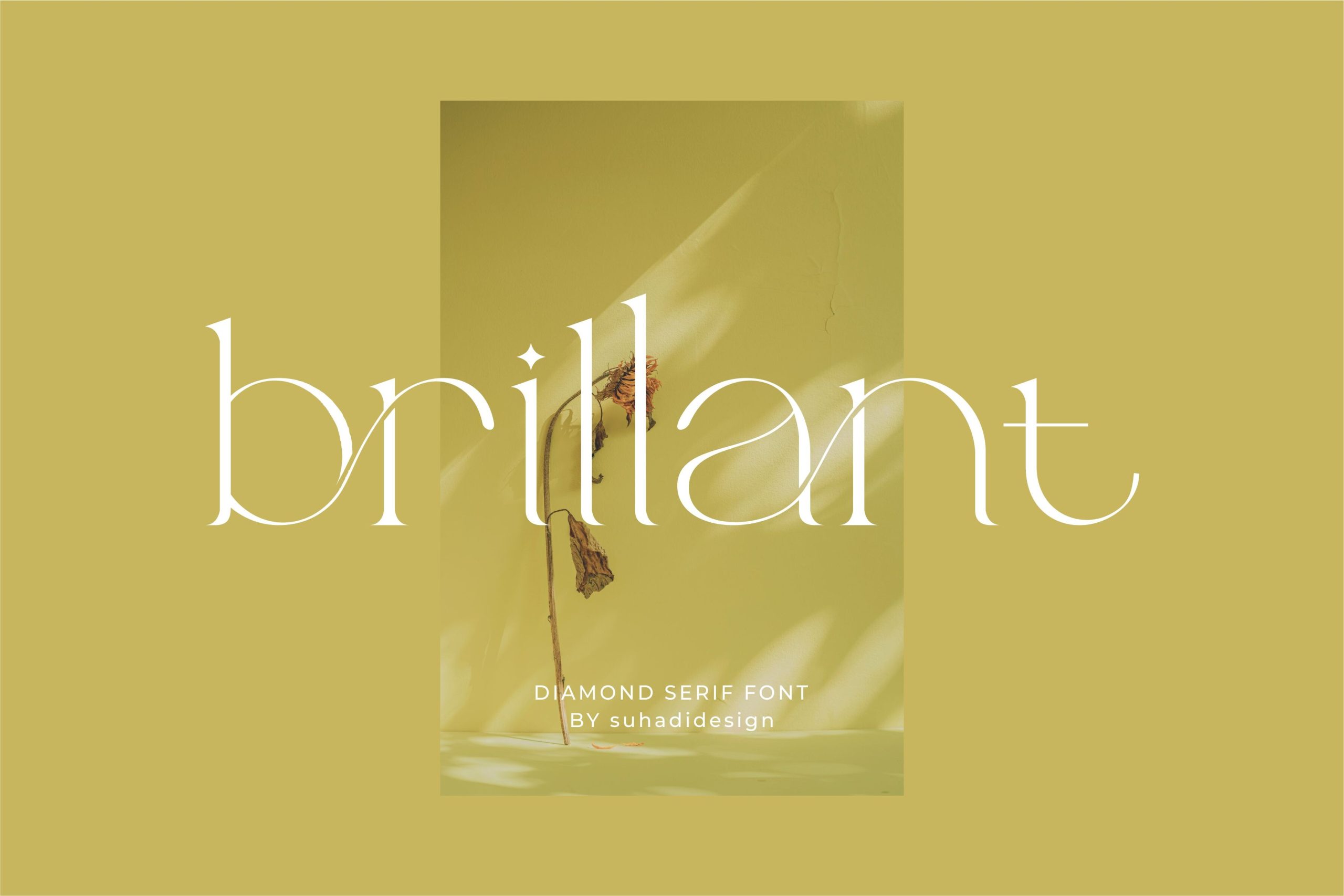
Brillant Font
Brillant is a new serif typeface that has much in common with the minimalist typefaces, but at the same time, it looks extremely elegant significantly residing in the sphere of modern fonts. probably because of its modern form it has become a popular market product. We thus ensure that this font style is kept as neat, clean, and as stylish as it is possible to be.
Brilliant Font is best suitable for the beauty, magazines, design, books, publications, brand names, business cards, social networking, elegant designs newspapers, branding and the like usage. Now providing you with better designs is Brillant Font.
Brillant Serif Font